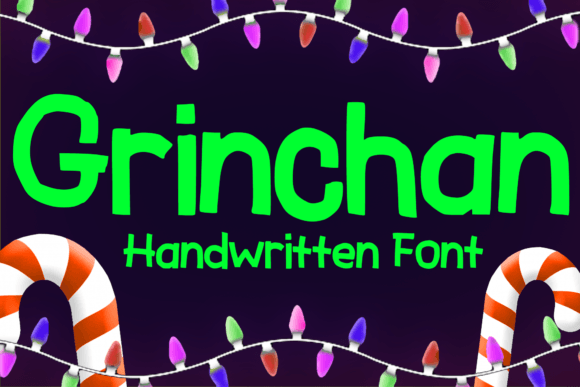
Introducing Grinchan, the delightful font that captivates hearts and unleashes creativity! This eye-catching display font, meticulously crafted by MVMET, adds a touch of whimsy and wonder to your designs, making them irresistible to the eyes. Its playful, childlike appearance evokes a sense of nostalgia and joy, transporting you to a world of make-believe.
Grinchan's versatility knows no bounds. Whether you're designing t-shirts, children's books, or greeting cards, this font is your perfect companion. It lends a casual, approachable charm to posters, stickers, and any project that seeks an informal, inviting vibe. Fall head over heels for Grinchan's versatile style and embark on a delightful journey of design exploration.
Grinchan is the ultimate choice for creating captivating recipe books. Its friendly, legible nature guides readers through culinary adventures with ease, making every recipe an unforgettable experience. This font brings warmth and personality to your cookbook, inviting readers to savor each page and embrace the joy of cooking.
With Grinchan, the possibilities are endless. Its enchanting style adds a touch of magic to invitations, turning ordinary events into extraordinary celebrations. It breathes life into logos, giving brands a playful, memorable identity that resonates with audiences. Unleash your creativity and let Grinchan transform your designs into works of art.
Don't settle for ordinary fonts. Embrace the magic of Grinchan and watch your designs come alive with joy and personality. Its versatility, charm, and undeniable appeal make it the perfect choice for designers seeking to create exceptional, eye-catching projects. Experience the Grinchan difference today and embark on a creative journey like never before!